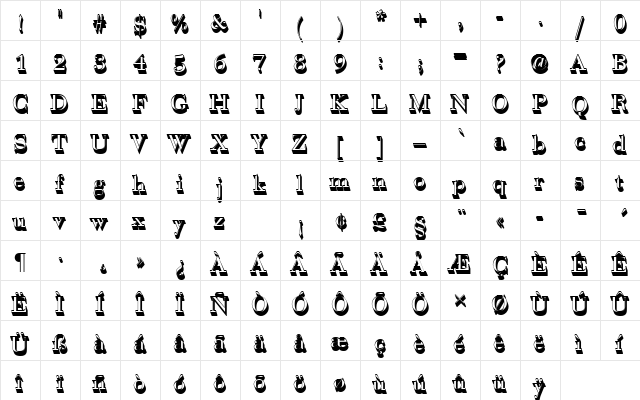
BauerBodDRegSh1 Regular Font Preview
BauerBodDRegSh1 Regular
Design Context for BauerBodDRegSh1 Typeface
BauerBodDRegSh1 is a composed and adaptable typeface that performs quietly and consistently across a wide range of design contexts.